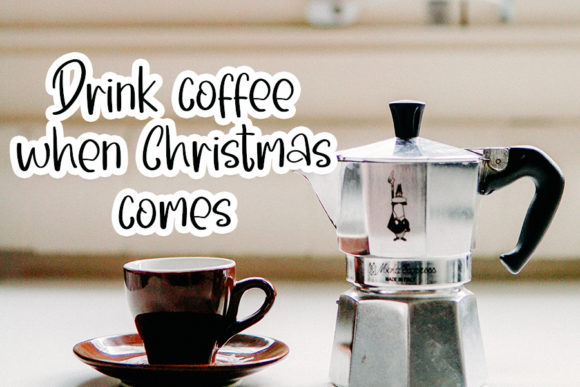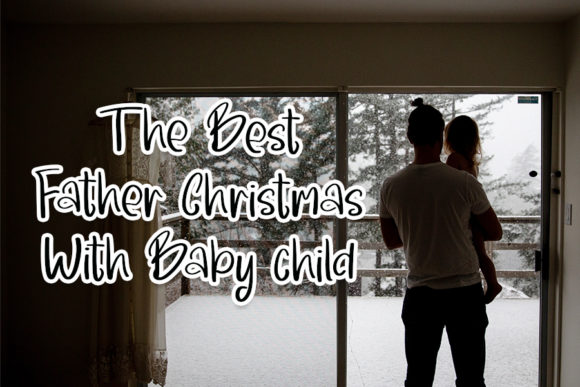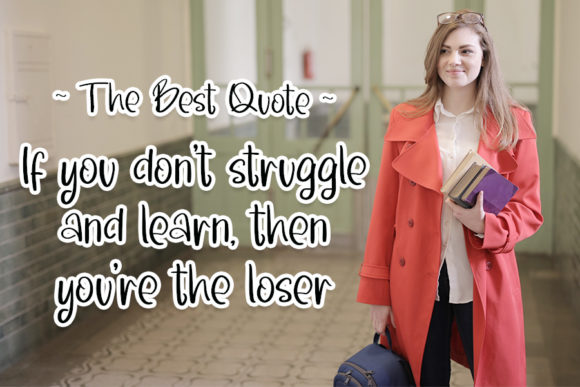
Introduction to Morning Santa Font
Morning Santa is a casual and relaxed handwritten font.
Its distinct and well rounded letters make this font a masterpiece Fall in love with its incredibly versatile style and use it to create spectacular designs.
Why Choose Morning Santa Font?
Morning Santa Font offers exceptional quality and versatility, making it a valuable addition to your design toolkit. Whether you’re creating for personal projects or commercial use, Morning Santa Font delivers professional results.